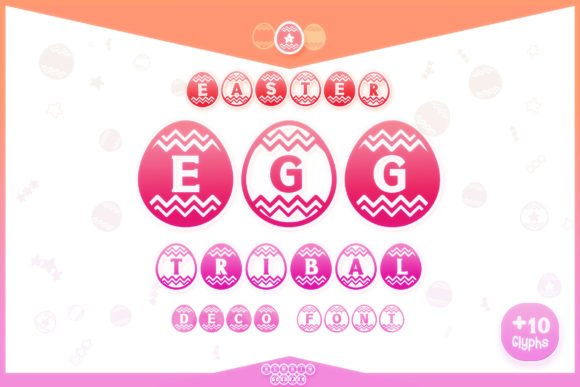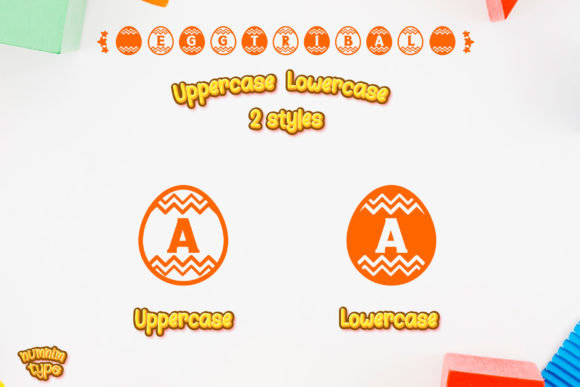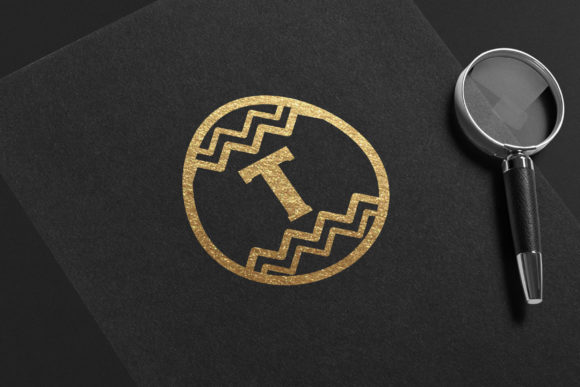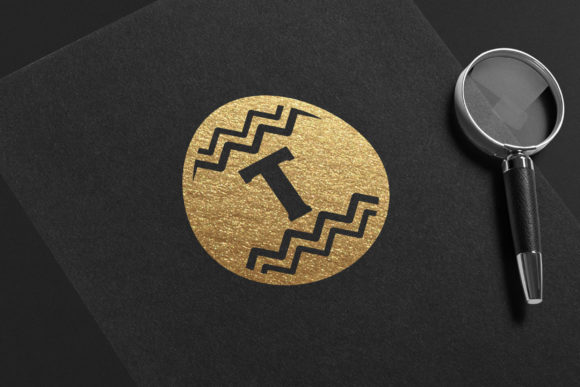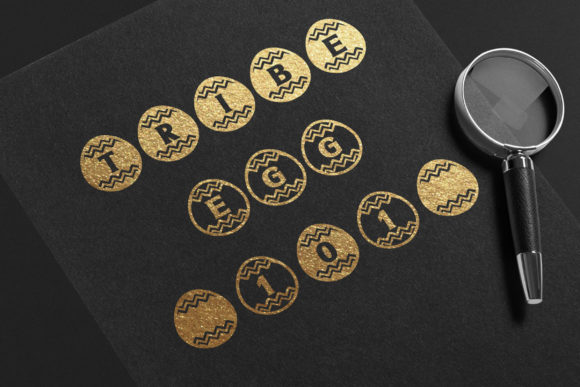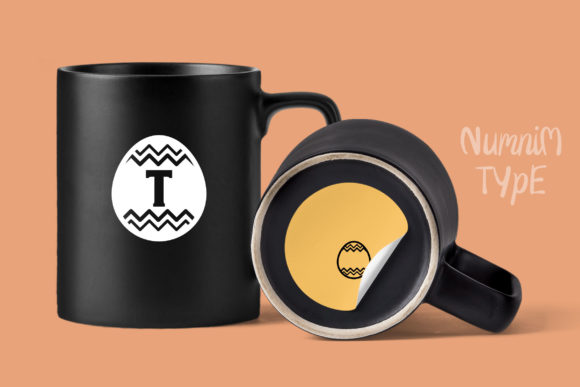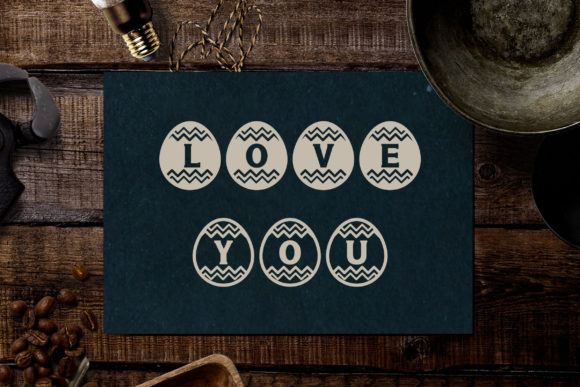
The Perfect Font for Spring and Beyond: Easter Egg Tribal Font
Do you remember the excitement of cracking open an Easter egg as a child, only to reveal a hidden treasure inside? That same sense of joy and surprise can be captured with the Easter Egg Tribal Font, a unique and playful decorative font designed to add a touch of whimsy to your creative projects.
This fun and eye-catching font is perfect for designers looking to add a springtime feel to their designs. Whether you’re creating stickers, mugs, t-shirts, or event invitations, the Easter Egg Tribal Font is sure to bring a smile to your customers’ faces. Its versatility and charm make it a valuable asset for any designer looking to add a little extra magic to their work.
With its unique characters and playful feel, the Easter Egg Tribal Font is the perfect way to make your designs stand out from the crowd.
Easter Egg Tribal Font Key Features
- Font Family: Easter Egg Tribal Font is a unique, hand-drawn font that combines elements of tribal and Easter-inspired designs.
- Unique Characteristics: The Easter Egg Tribal Font features intricate, hand-drawn designs with Easter egg-inspired motifs, making it perfect for adding a touch of whimsy to designs.
- Character Set: The font includes a comprehensive character set, including uppercase and lowercase letters, numbers, and special characters.
Easter Egg Tribal Font Review
Overall, I found the Easter Egg Tribal Font to be a unique and intriguing addition to any design project. Here are some of its strengths: ✨
- Playful Personality: This font embodies the carefree spirit of Easter, making it perfect for holiday-themed designs.
- Vibrant Colors: The Easter Egg Tribal Font is available in a range of bright, bold colors that add a pop of fun to any design.
- Customizable**: The font can be easily customized to fit your design needs, whether you’re creating a festive poster or a playful logo.
However, I did encounter a few limitations: ⚠️
- Readability Issues: In smaller font sizes, the Easter Egg Tribal Font can become difficult to read due to its intricate design.
- Compatibility Concerns**: I encountered some compatibility issues when using the font in certain design software, which may be a problem for some users.
Overall, I would give the Easter Egg Tribal Font 4 out of 5 stars. While it’s a fun and creative font, its limitations may make it less suitable for more serious design projects. However, for those looking to add a playful touch to their designs, this font is definitely worth considering.
Tips for Getting the Most Out of Easter Egg Tribal Font
Here are some tips for getting the most out of Easter Egg Tribal Font:
- Use it for titles and headings to add a touch of whimsy.
- Pair it with bold fonts for a striking contrast.
- Experiment with different colors to match your brand or design aesthetic.
Easter Egg Tribal Font is perfect for:
- Summer-themed designs.
- Children’s party invitations.
- Outdoor and adventure-related designs.
Alternative Tribal Font Options for Designers
1. Paco Font
Paco Font is a modern, tribal-inspired font with bold lines and a playful feel. It’s ideal for designs that require a fun, energetic vibe, such as festival or concert promotions. Compared to Easter Egg Tribal Font, Paco Font has a more refined, polished look, making it suitable for a wider range of design applications.
2. Rockwell Tribal
Rockwell Tribal is a distressed, tribal-inspired font with a rugged, edgy feel. It’s perfect for designs that require a tough, rebellious look, such as biker or heavy metal promotions. Unlike Easter Egg Tribal Font, Rockwell Tribal has a more aggressive, industrial feel, making it suitable for designs that need to convey a sense of intensity.